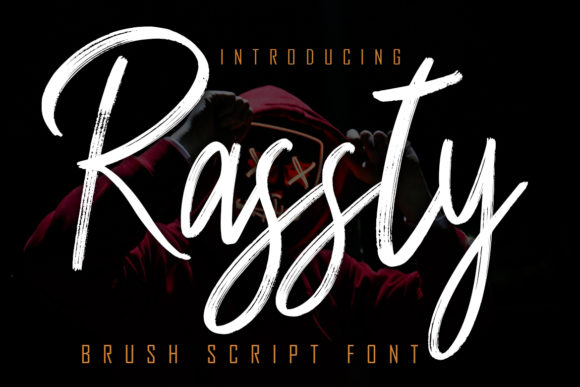
Immerse yourself in the world of Rassty Brush Script Font, a captivating creation by Skiiller Studio. This font exudes a charm and allure that will elevate your designs to new heights. Rassty Brush Script Font is a true gem, a handcrafted masterpiece that oozes authenticity and personality. Its strokes dance across the page, mimicking the graceful sweeps of a brush, capturing the essence of artistry and creativity.
Step into a realm where elegance and playfulness intertwine. Rassty Brush Script Font is a symphony of sophistication and whimsy, a font that speaks volumes without uttering a single word. Its characters possess a unique charm, each letter telling a story, each word painting a picture. With Rassty Brush Script Font, your designs will come alive, captivating audiences with their enchanting beauty.
Unleash your imagination and embark on a creative journey with Rassty Brush Script Font. Its versatility knows no bounds, effortlessly adapting to a myriad of projects. Let your creativity soar as you weave words into works of art, crafting logos that exude professionalism, branding that resonates with your audience, and social media posts that ignite engagement.